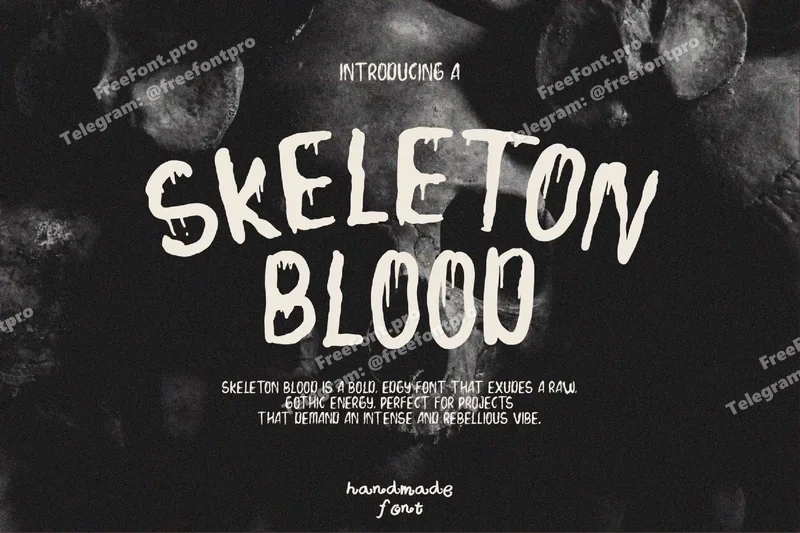
SkeletonBlood – Mystical Font
Skeleton Blood is a spine-chilling display font that embodies the macabre and gory spirit of Halloween. With its skeletal, bone-crushing forms and blood-splattered details, this typeface creates an atmosphere of horror and death. Ideal for creepy posters, haunted event flyers, gruesome invitations, and horror-themed designs, Skeleton Blood brings the dark, twisted energy of the graveyard to your projects. It’s bold, disturbing, and perfectly suited for designs that demand attention and evoke fear, making it the ultimate choice for your Halloween-themed creations.